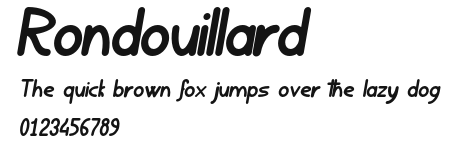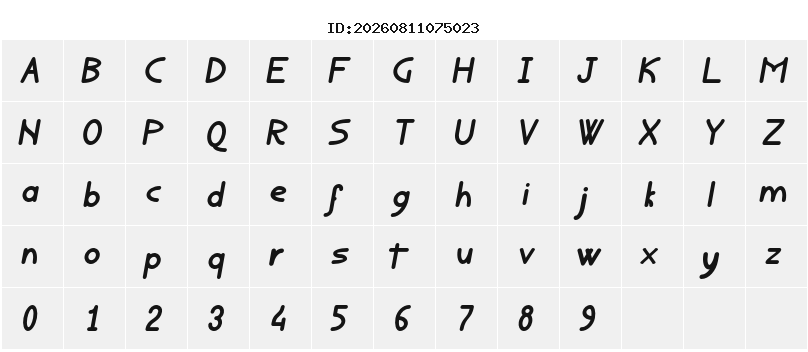
Rondouillard Preview
• Font Name: Rondouillard
• Full Font Name: Rondouillard
About Rondouillard.ttf
Rondouillard.ttf is a modern, elegant sans-serif font designed for ultimate readability and visual harmony. Perfect for branding, headlines, web design, and print materials.